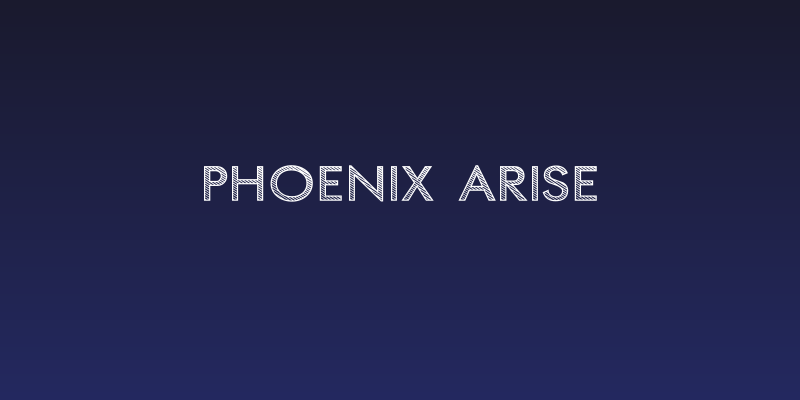
Phoenix Arise Font
Phoenix Arise Description
This font features a bold, decorative style with a distinct diagonal stripe pattern within each character. The uppercase and lowercase letters maintain a consistent width, creating a uniform appearance. The numerals and special characters follow the same design, ensuring a cohesive look across all elements. The font's unique texture adds a dynamic and eye-catching quality, making it suitable for projects that require a strong visual impact. Its geometric structure and clean lines contribute to a modern aesthetic, while the striped detailing provides a touch of playfulness.
Proposed ProjectsIdeal for branding, posters, headlines, and any design needing a bold, decorative touch.